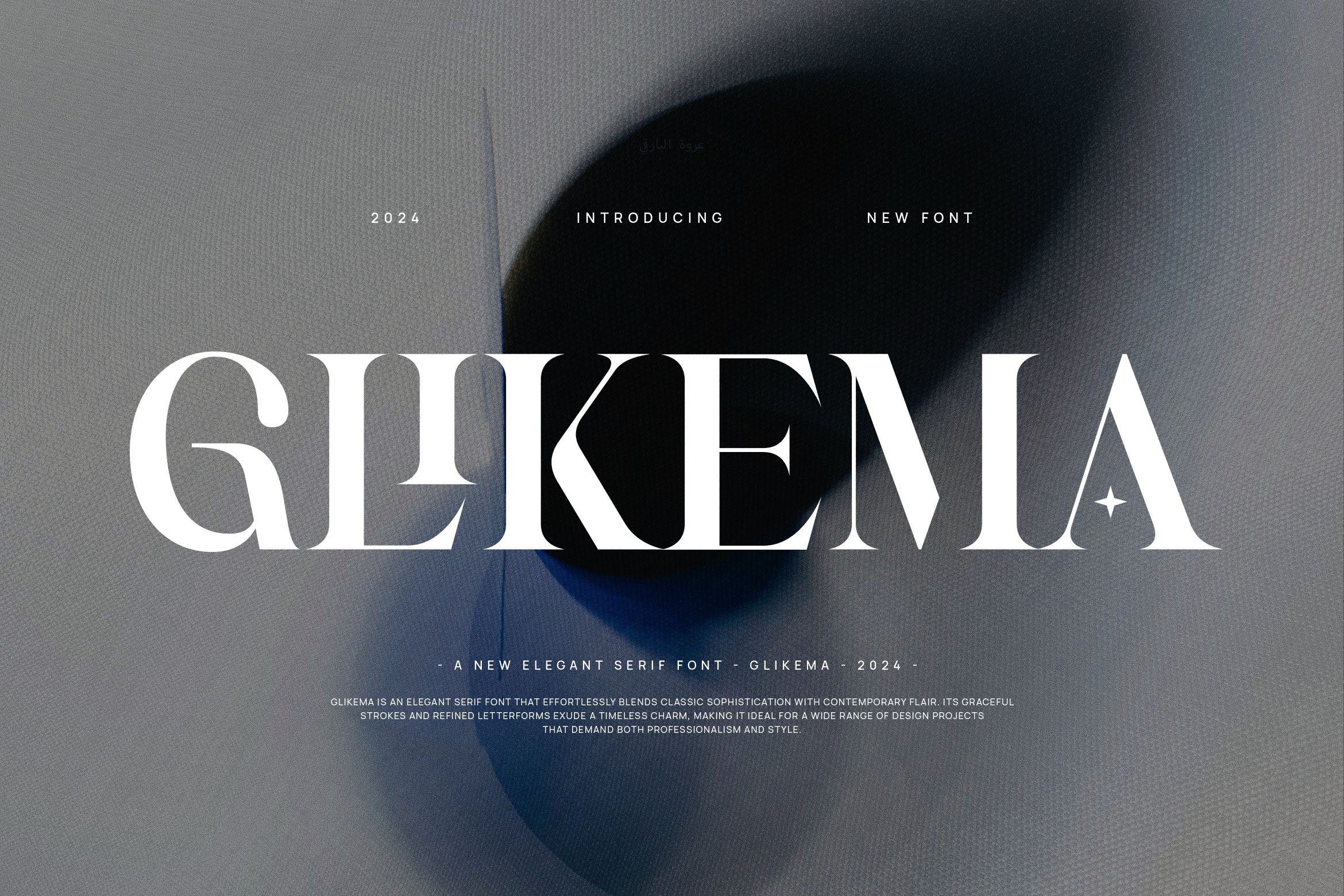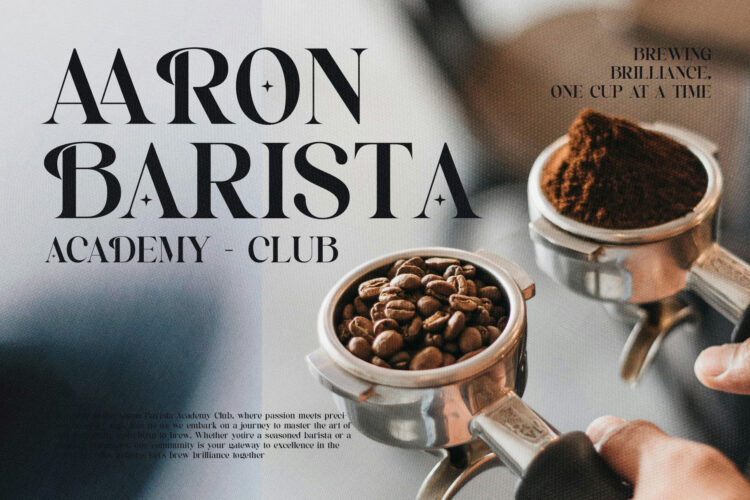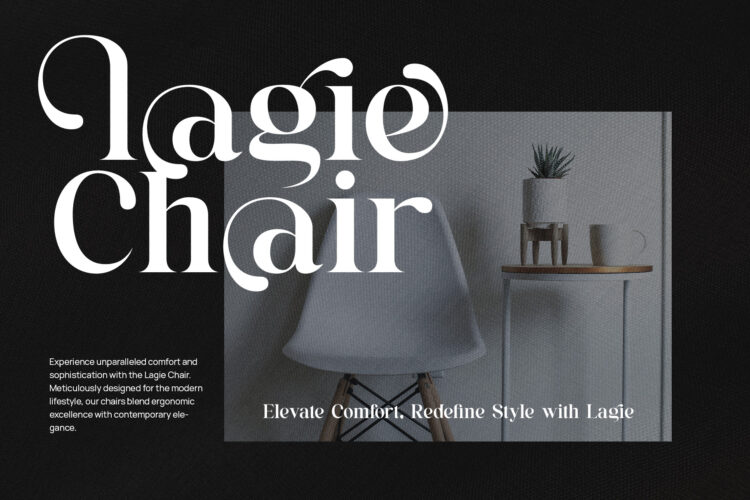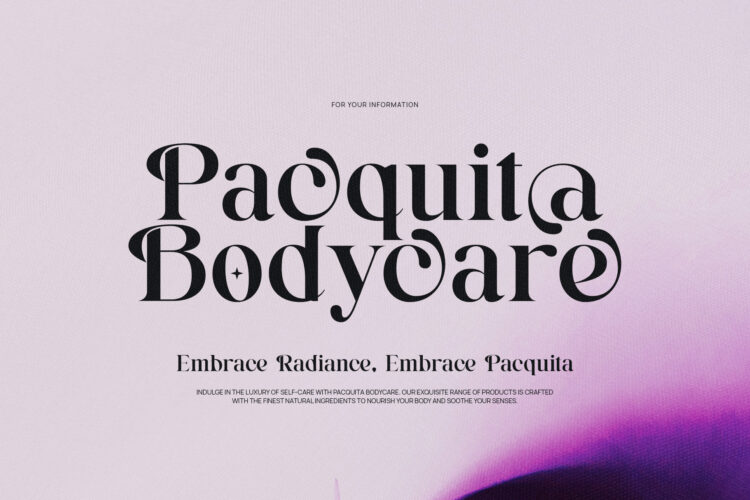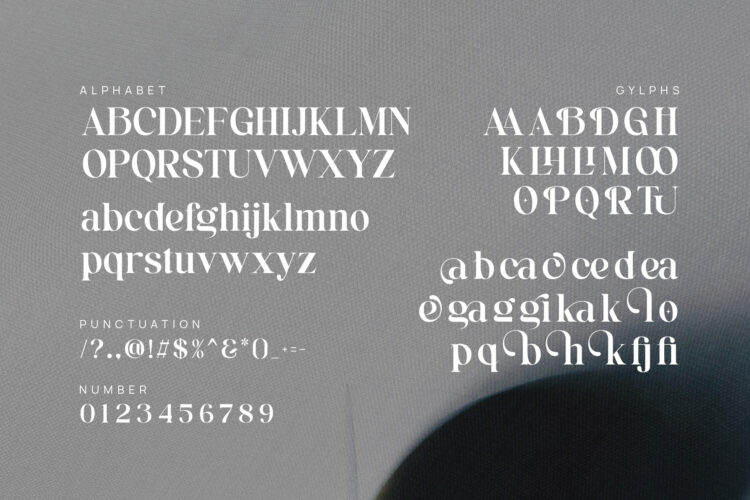
Introducing our new Glikema, modern serif font with elegant style this is perfect for branding, logos, invitation, magazines, product packaging and more.
Glikema – Modern Elegant Serif